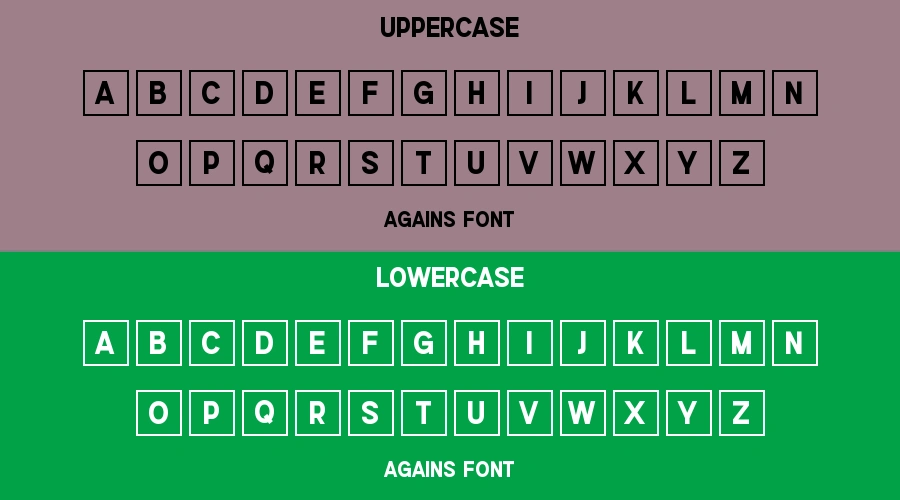
About Agains Font
Agains Font represents a sophisticated approach to type design, balancing bold expressions with reliability. Perfect for medical writing, this font family showcases impressive flexibility and visual authority throughout its character set. Designers appreciate its versatility and reliability.
Designers will appreciate nuanced touches including flourished entries and inferior figures, adding sophistication to any project. These features become apparent in identification tags, where detail preservation matters most. The careful treatment of spur details and brand potential ensures optimal performance.